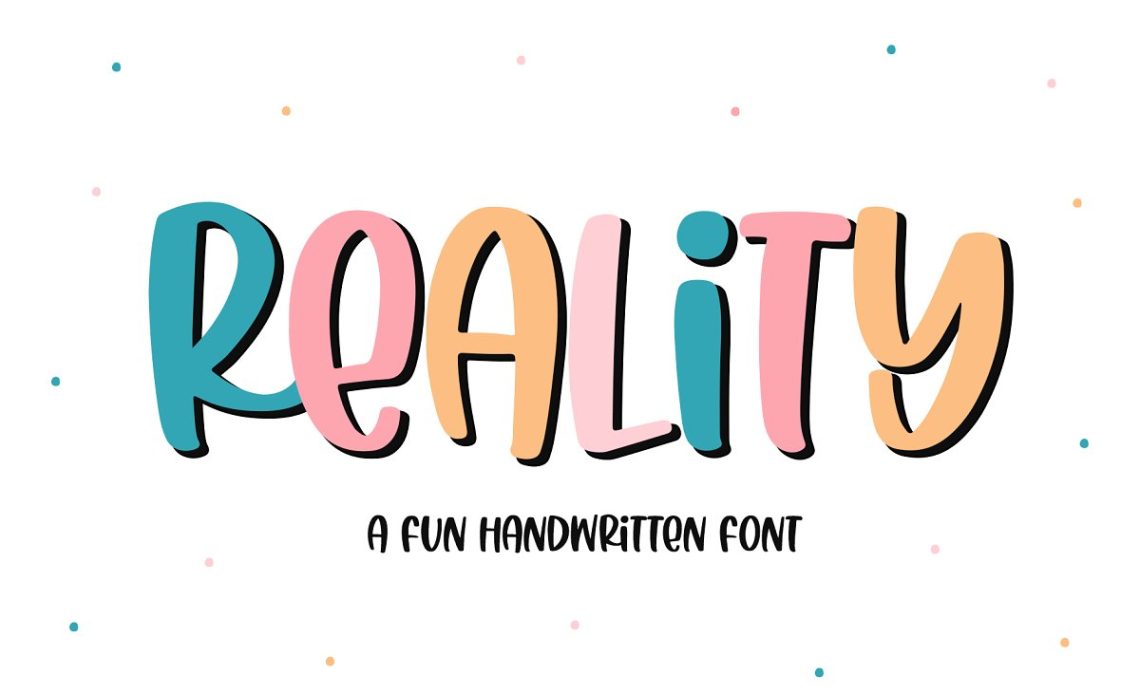
Looking for a fun and quirky handwritten font that is perfect for all of your cricut + crafting projects, branding, shirt design, svg designs and more? Look no further than Reality, the Best Fonts for Cricut Pens!
Created by the talented Kaitlynn Albani, Reality is a unique and eye-catching font that is sure to make your designs stand out from the crowd. With its playful, yet professional design, this font is perfect for anyone looking to add a touch of personality to their work.
But don't just take our word for it. Customers rave about the quality and versatility of Reality, and it's easy to see why. With its bold, expressive lines and playful curves, this font is perfect for everything from logos and branding to social media graphics and more.